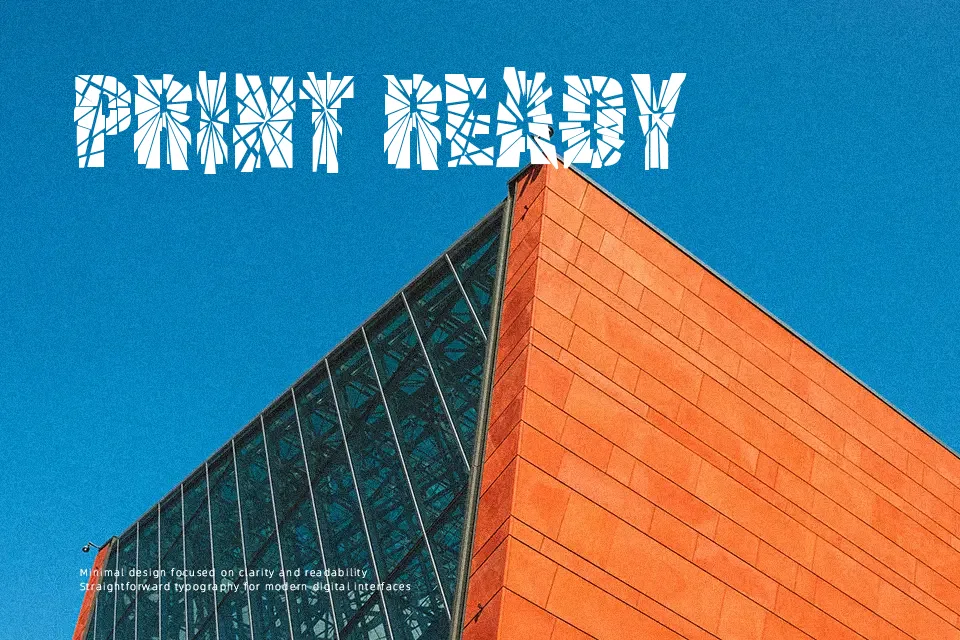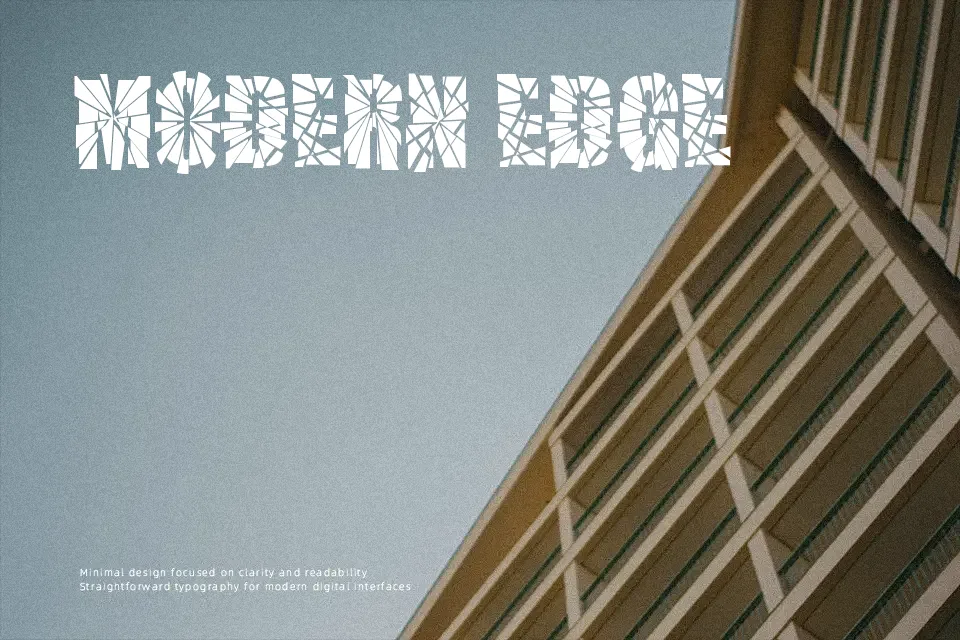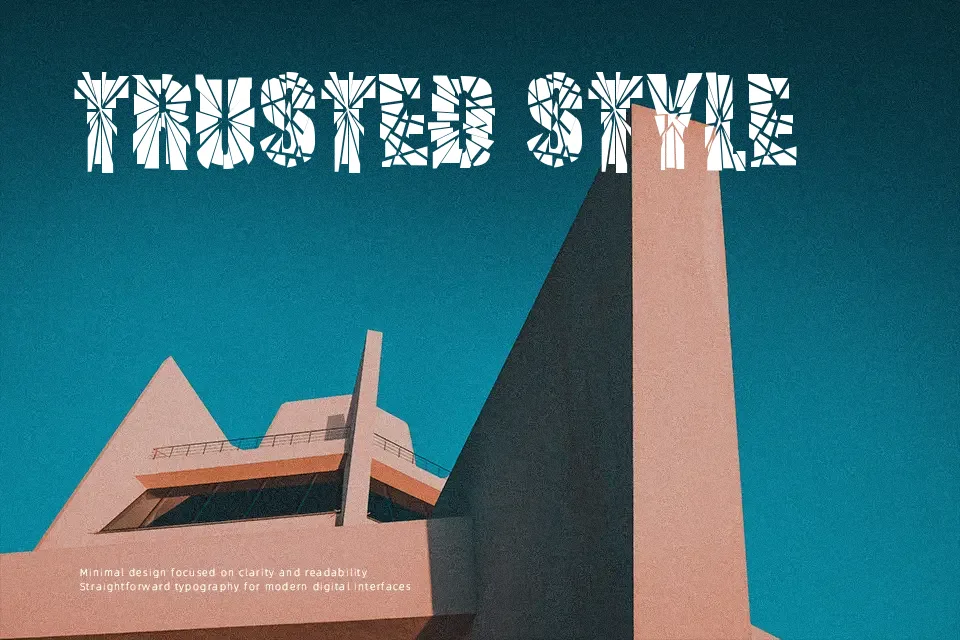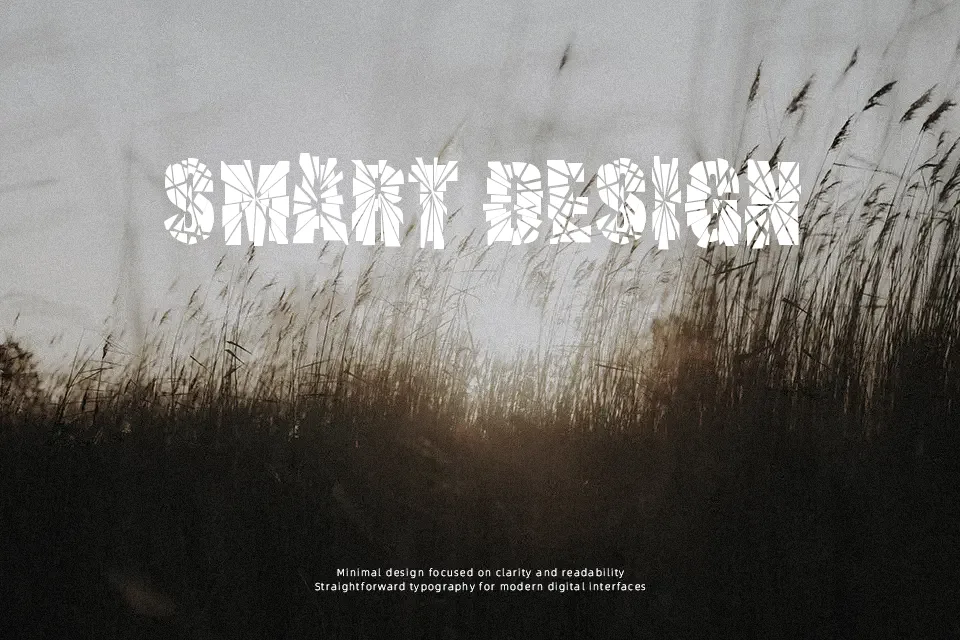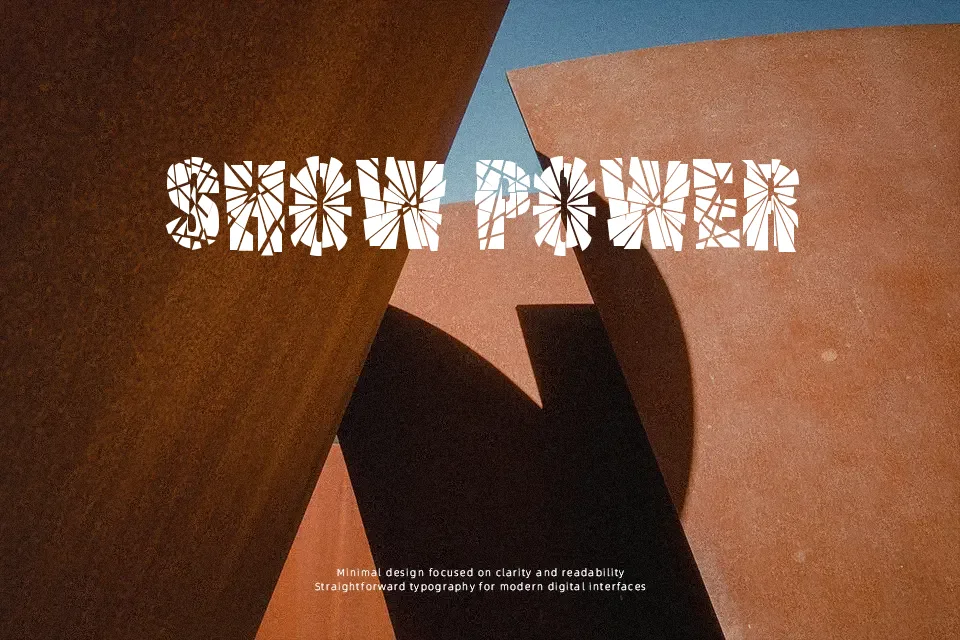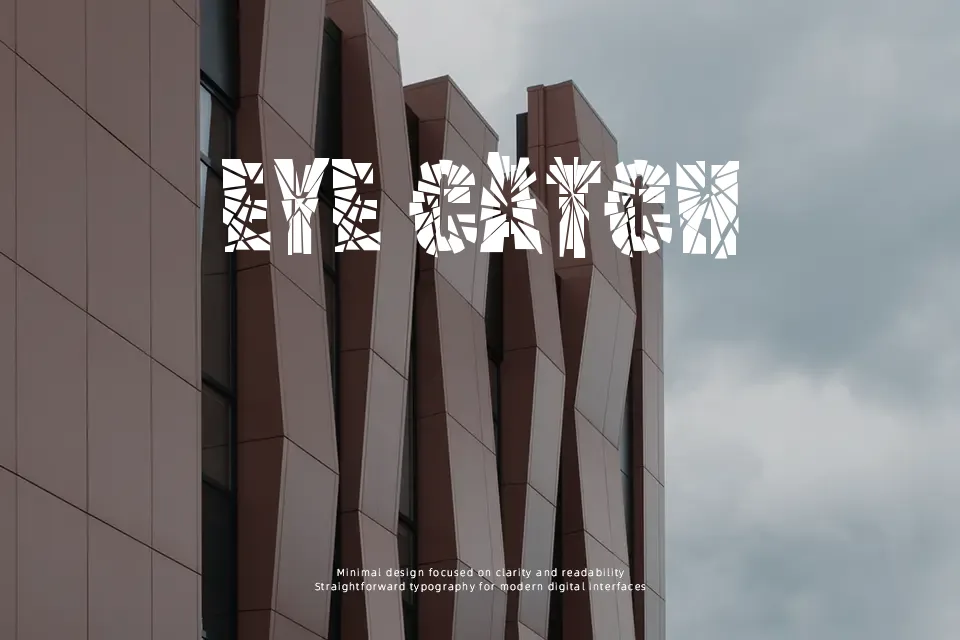
Sniper Shot Font
Sniper Shot Font uses jagged, disrupted letterforms that create a rough display texture across uppercase and lowercase text. Its strokes appear uneven and sharply broken rather than smooth, while the proportions and spacing give short words a tense, energetic rhythm. The typeface is most effective in large headlines, poster copy, and game-related graphics where its distressed silhouette can remain visible. The uneven construction makes it less comfortable for small text or extended passages. In practice, the spacing helps individual characters stand out at display sizes, but dense lines can become difficult to scan.
Best For: action game titles,dramatic poster headlines,film promotional graphics,apparel graphics
Perfect for film, gaming, and headline, with a dark and decorative style.